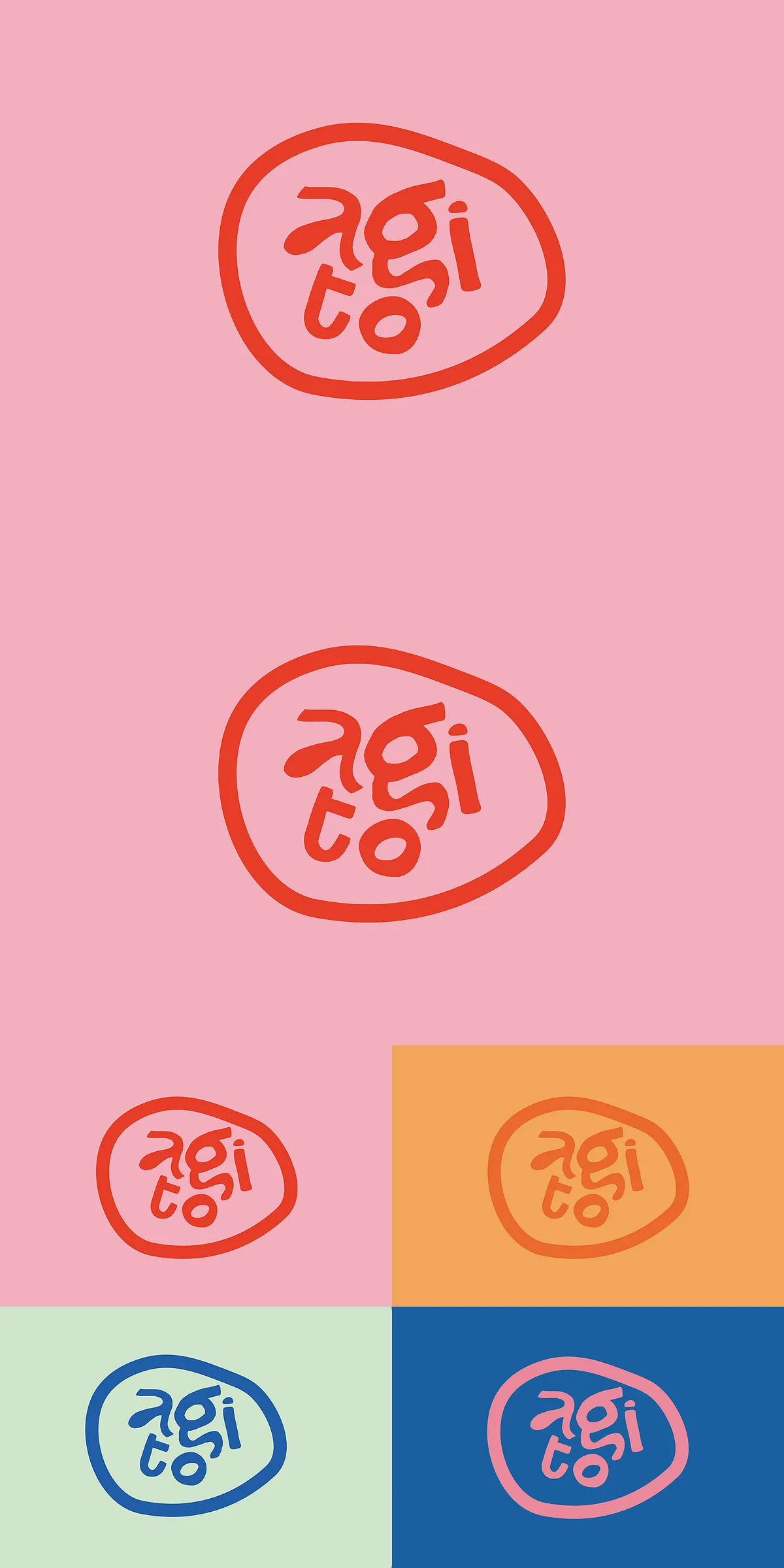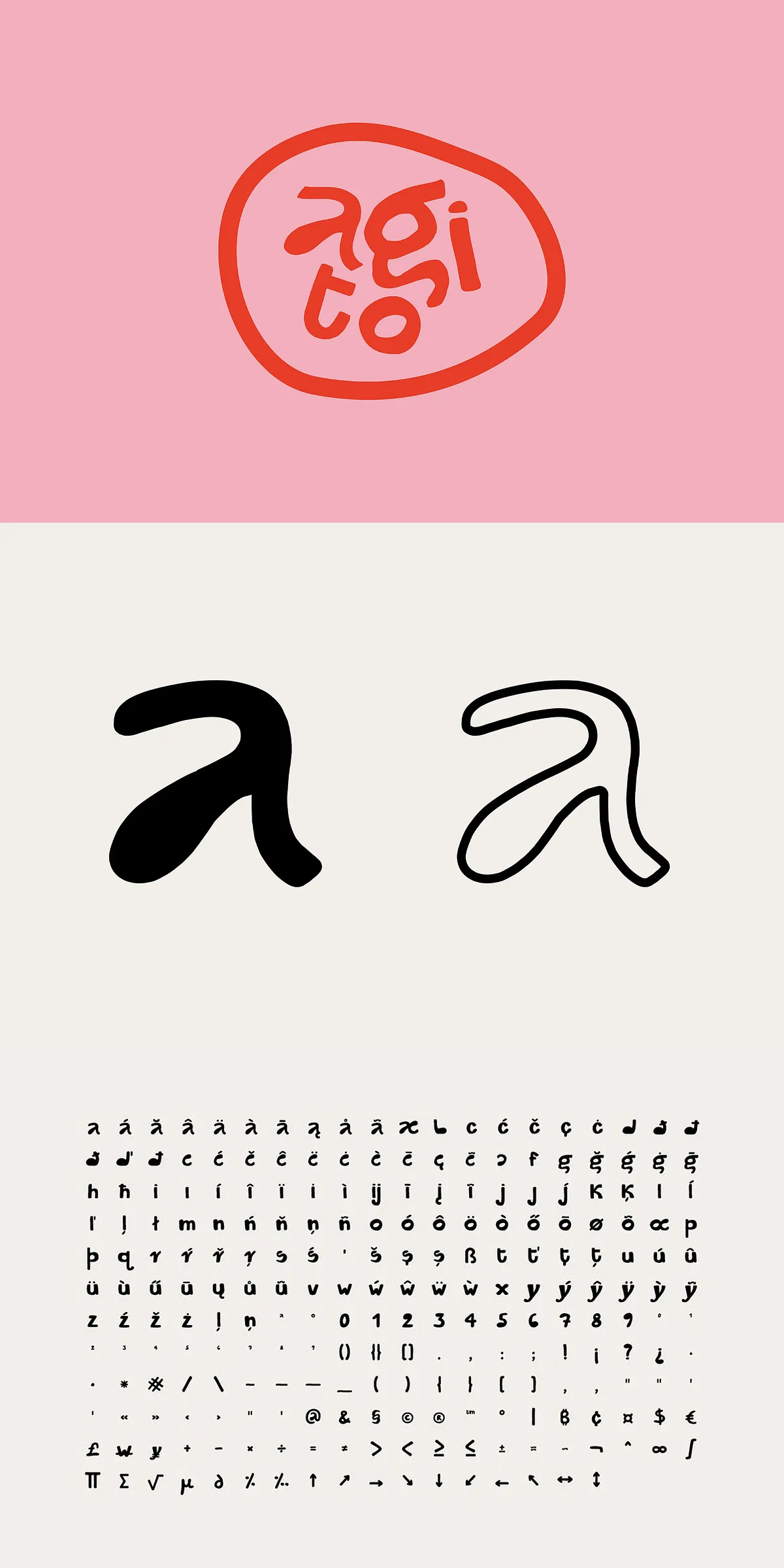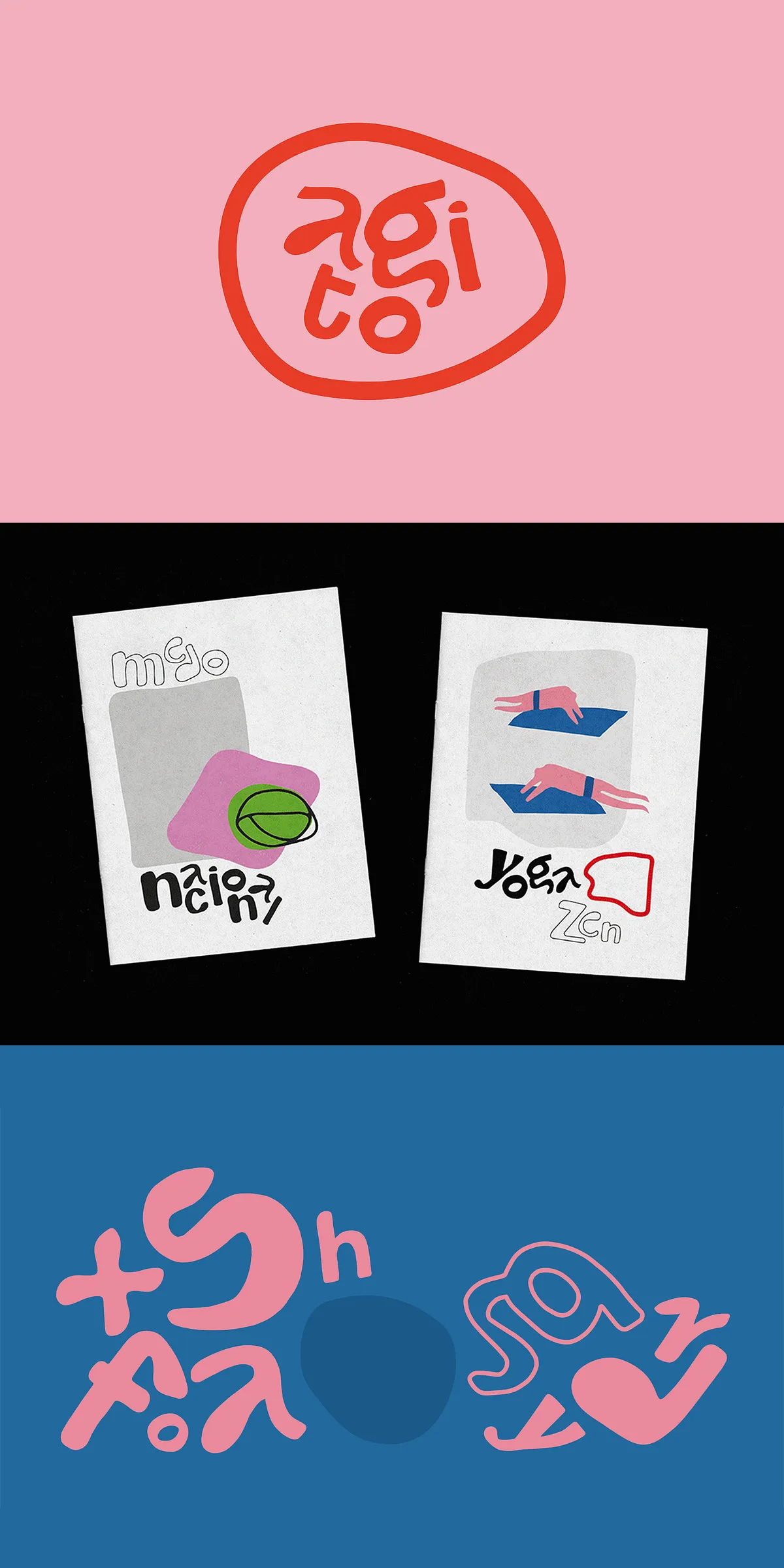
Agito – Display Typeface
Agito channels the clarity and restraint of modernist design while preserving organic motion through ink-drawn letterforms. Each glyph began as a hand-rendered stroke and was refined digitally to preserve subtle curves and fluid connections. The result is a sans-serif display face that feels deliberate and alive: letterforms align with modernist geometry while retaining human rhythm and cohesion. This balance makes Agito especially powerful for typographic arrangements where visual harmony and personality must coexist.
Why Agito Excels In Posters Logos And Typographic Composition
Agito’s fluid counters and consistent stroke rhythm create striking headlines that command attention without appearing aggressive. Its crafted shapes offer instant recognition at large sizes, while its internal spacing and proportions maintain legibility in compact arrangements. Use Agito when you want typography to act as the primary design element — think bold posters, brand marks, editorial covers, and artistic layouts where letterforms carry mood and structure.
Practical Uses Pairing Suggestions And Workflow Recommendations
Agito proves versatile across digital and print media. Its presence at large sizes makes it a natural headline face; at display sizes it defines tone and hierarchy. Pair Agito with a neutral serif or a soft humanist sans for body text to preserve readability while keeping a refined aesthetic. Use generous leading and subtle tracking in long lines to maintain open counters and preserve the handcrafted feel.
Suggested Typographic Pairings And Hierarchy Strategies
• Pair Agito with a readable serif for editorial systems to balance display energy with reading comfort.
• Use heavier display weights for primary headlines and lighter weights for subheads to create consistent contrast.
• Leverage alternate PUA glyphs to introduce stylistic variety in logotypes and headline treatments.